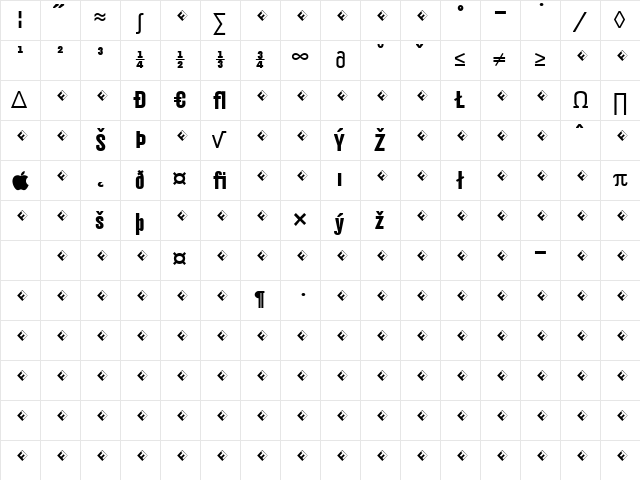
Hydra-BoldExpert Regular
| Designer | Silvio Napoleone |
Design Context for Hydra-BoldExpert Typeface
Hydra-BoldExpert is a composed and adaptable typeface that performs quietly and consistently across a wide range of design contexts. The heavy weight commands attention and anchors typographic hierarchies.